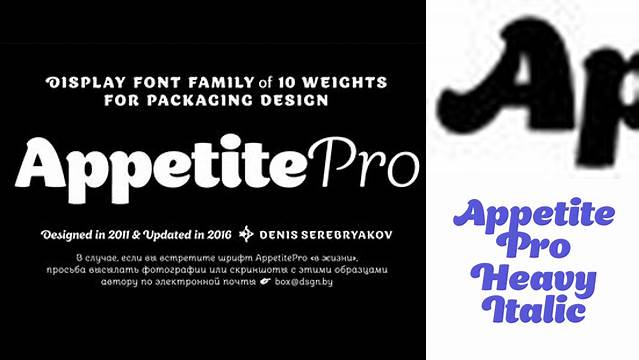
Hey guys! Are you looking to give your designs a bold and impactful look? Well, you've come to the right place. Today, we're diving deep into the world of Appetite Pro Heavy, a font that can seriously elevate your projects. Whether you're a seasoned designer or just starting, understanding how to find, download, and use this font is essential. Let's get started and explore everything you need to know about getting your hands on Appetite Pro Heavy for free!
1. Understanding Appetite Pro Heavy Font
Before we jump into the download process, let's understand what makes Appetite Pro Heavy so special. This font is known for its robust, strong, and attention-grabbing appearance. Its heavy weight makes it perfect for headlines, posters, branding, and anything else that needs to make a statement. The design elements often include clean lines and a contemporary feel, making it versatile for various design styles. Appetite Pro Heavy is more than just a font; it’s a tool to communicate power and confidence in your designs. Knowing its characteristics will help you use it effectively in your projects, ensuring it aligns with your message and aesthetic. Consider the font's impact on readability and overall visual harmony. Experiment with different sizes and weights to see how it behaves in various contexts. By mastering Appetite Pro Heavy, you can make a significant impact on your audience.
2. The Appeal of Heavy Fonts in Design
What's the big deal with heavy fonts anyway? Heavy fonts, like Appetite Pro Heavy, have a unique appeal in the design world. They immediately grab attention, making them ideal for headlines, titles, and anything that needs to stand out. The boldness conveys a sense of strength, importance, and confidence. Think about it – when you see a poster with a heavy font, it's hard to ignore! Heavy fonts are also great for creating visual hierarchy, guiding the viewer's eye to the most important elements. However, it's essential to use them wisely. Overusing heavy fonts can make your design feel cluttered and overwhelming. Balance is key. Pair them with lighter fonts for body text to create a harmonious and readable layout. Understanding the psychology behind heavy fonts will help you make informed design decisions. Are you trying to convey power? Urgency? Importance? A heavy font might be the perfect tool. Just remember to use it strategically to enhance, not detract from, your overall design.
5. Identifying Authentic Appetite Pro Heavy Font
So, you've found a site that claims to offer Appetite Pro Heavy for free. How do you know it's the real deal? Identifying an authentic font can be tricky, but there are a few things you can look for. First, check the font's characteristics. Compare it to images of the official Appetite Pro Heavy font. Look at the letterforms, spacing, and overall design. Does it match up? If something seems off, it might be a fake. Another way to verify authenticity is to check the font files themselves. Authentic fonts usually come with specific metadata, such as the designer's name, copyright information, and version number. You can view this metadata in your font management software. If the font lacks this information, it's a red flag. Finally, trust your instincts. If something feels suspicious, it probably is. Download fonts only from reputable sources, and always be cautious when dealing with free downloads. Taking these precautions will help you avoid downloading counterfeit fonts and ensure you're using the real Appetite Pro Heavy in your designs.